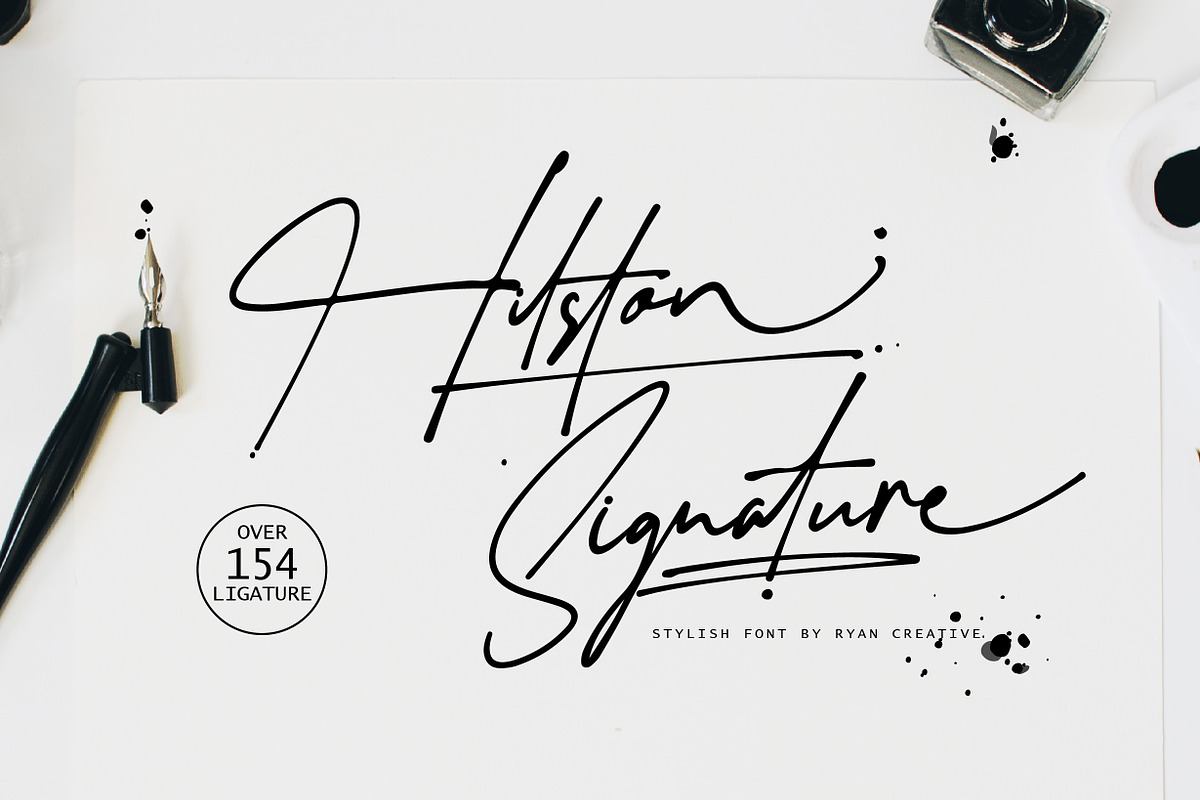
Hilston - Signature font script Free Download
Hilston - Signature Font Script Free Download
Hilston - Signature Font Script Free Download is a sophisticated and elegant typeface designed to add a personal, handwritten touch to your projects. With its smooth, flowing strokes and stylish letterforms, this font is perfect for creating logos, invitations, branding materials, and more. The signature-style design brings a sense of authenticity and refinement, making it ideal for luxury brands, creative businesses, and wedding stationery. Whether you're crafting a unique logo, designing personalized gifts, or creating beautiful event invitations, Hilston - Signature Font Script Free Download allows you to experiment with its graceful design in personal projects before purchasing a commercial license. Add a refined and elegant feel to your designs with this beautifully crafted signature script font.